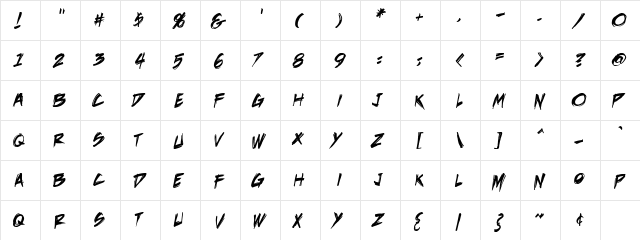
DeathRattle BB Regular
| Foundry | Nate Piekos. Blambot.com |
| Designer | Nate Piekos |
Design Context for DeathRattle BB Typeface
DeathRattle BB leans into the macabre with letterforms designed to disturb and intrigue in equal measure.
Ideal for Halloween projects, horror film titles, haunted house signage, and dark editorial design.
Font Pairing: Pair with a clean neutral sans-serif for body copy to let DeathRattle BB's character lead without overwhelming the composition.
Pro Tip: DeathRattle BB works best as a headline or focal element. Pair it against plain, neutral body text to amplify the contrast.